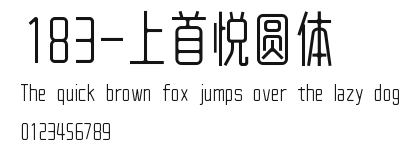
183-上首悦圆体 Preview
About 183-上首悦圆体.ttf
183-上首悦圆体.ttf is a modern, elegant sans-serif font designed for ultimate readability and visual harmony. Perfect for branding, headlines, web design, and print materials.